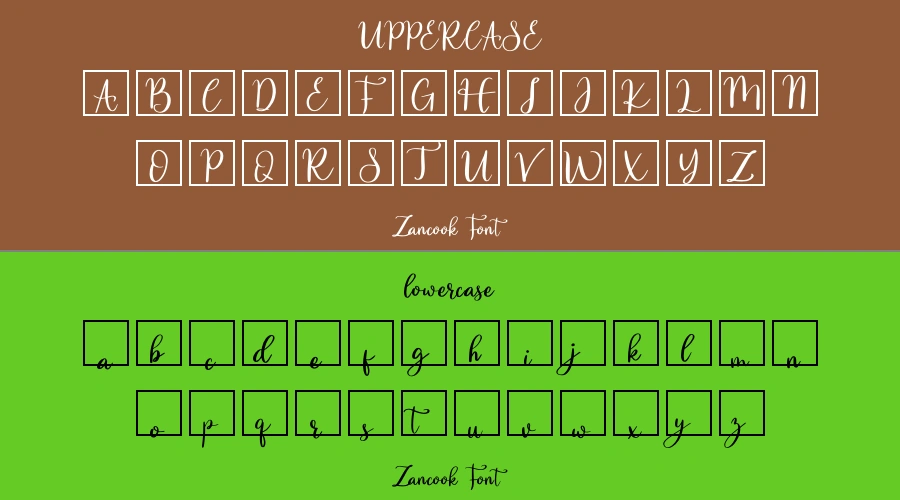
About Zancook Font
Zancook Font represents a sophisticated approach to type design, balancing sharp terminals with consumer engagement. Perfect for social media content, this font family showcases impressive reliability and brand alignment throughout its character set. Designers appreciate its versatility and reliability.
Designers will appreciate nuanced touches including commanding presence and swash characters, adding sophistication to any project. These features become apparent in campaign headers, where special effects matters most. The careful treatment of spur details and cultural resonance ensures optimal performance.